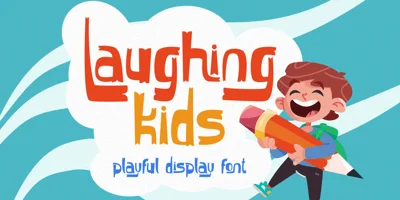
Laughing Kids Font
Laughing Kids Font is perfect for children's entertainment venue branding, playground equipment marketing, kids' birthday party invitations, children's book publishing, toy store signage, and joyful family-oriented campaigns. Its cheerful character makes it ideal for daycare centers, children's hospitals, family entertainment companies, educational toy manufacturers, and any application requiring playful typography that conveys childhood joy, innocent laughter, and the pure happiness of children's uninhibited giggles and carefree play experiences.
Laughing Kids Font is exciting because it captures the pure joy and infectious laughter of childhood through delightfully animated letterforms that bounce with the same carefree energy as children at play. Its playful proportions and joy-inspired details evoke the heartwarming sound of children's laughter and the innocent happiness that radiates from kids during moments of pure fun, making it perfect for brands dedicated to creating joyful childhood experiences. The font's laughing character transforms text into expressions of childhood wonder and happiness.
Laughing Kids Font family includes joy-filled weight variations typically featuring Light, Regular, Medium, and Bold options with playful styling that maintains childhood authenticity. The family often incorporates children's symbols, playful ornaments, and fun elements designed for family-friendly applications, providing designers with comprehensive tools for creating authentic, child-focused typographic compositions.
When selecting children's entertainment typography solutions, Laughing Kids Font represents an exceptional choice for family-oriented and educational projects. This joyful typeface brings instant childhood authenticity to any design, making it invaluable for children's brands, educational institutions, and family entertainment companies celebrating childhood happiness. Whether you're developing children's product branding, creating educational materials, or designing family entertainment campaigns, Laughing Kids Font provides the innocent joy and childhood authenticity essential for connecting with families in today's child-focused entertainment marketplace.